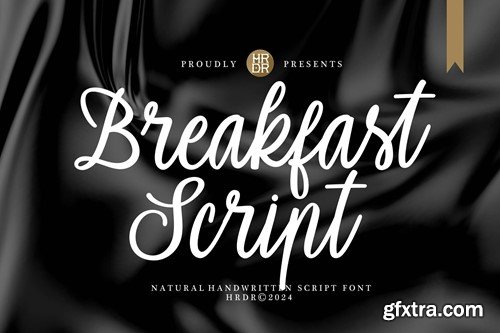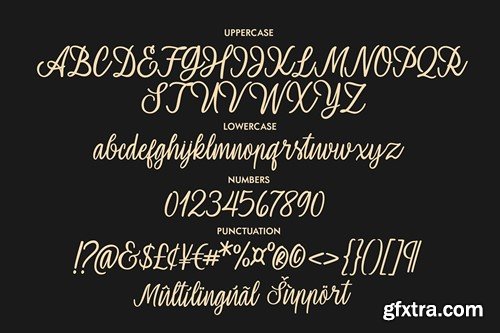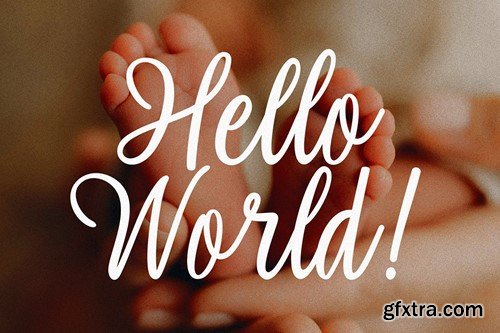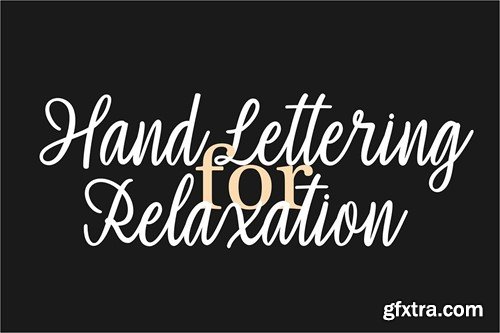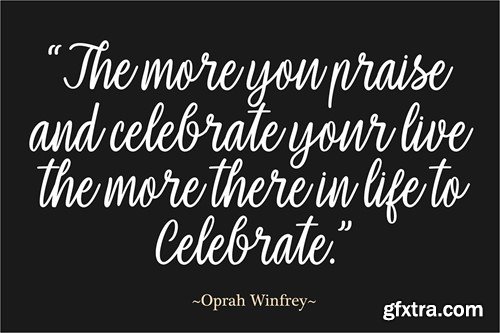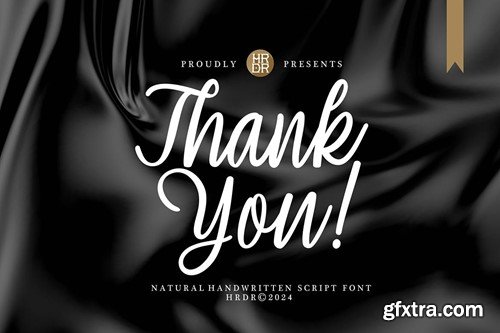
早餐脚本 - 自然手写字体 52BHVJS
Breakfast Script - Natural Handwritten Font 52BHVJS
Breakfast Script - Natural Handwritten Font
Breakfast Script Font is a Natural Handwritten Font. It's perfect for branding, wedding invitations, photography,bloggers,logos, greeting cards, Logo, Quotes, posters and more.
Font Features :
• Uppercase
• Lowercase
• numeric & Multilingual support
• Ligatures